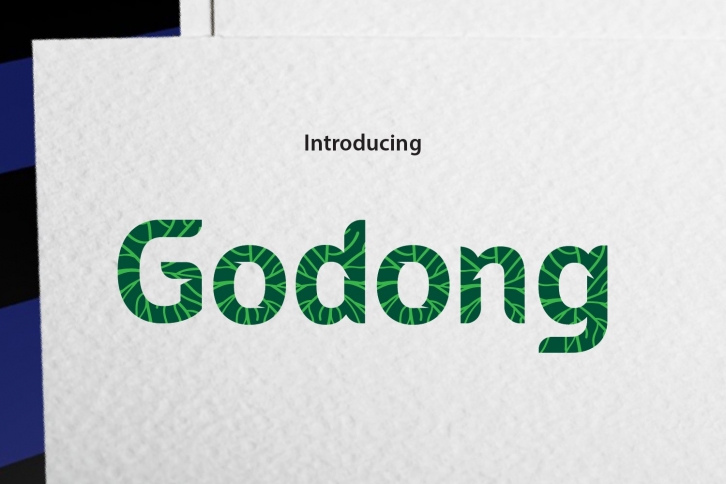
Godong is a beautiful font that was designed by daonlyaan. It's a great choice for designers and creatives who need such a font. It was released on August 4, 2020 and the file size is 13.96 MB. Godong may give a more youthful, expressive and casual look to your project. It is a very beautiful, refined, elegant, and high-quality font.